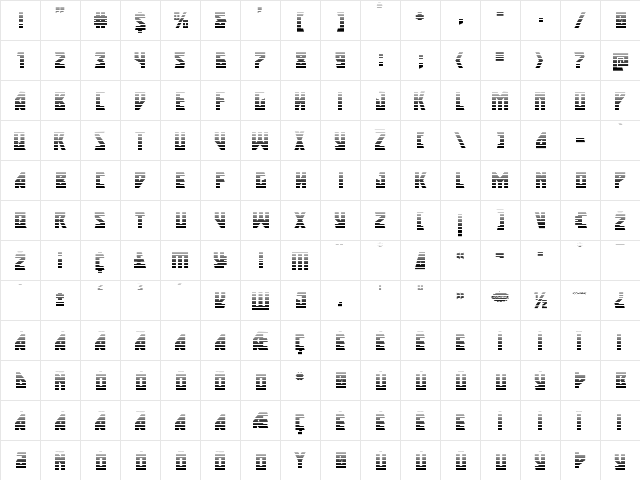
Major Force Gradient Regular
Design Context for Major Force Gradient Typeface
Major Force Gradient brings high-energy athletic personality to the page — its confident, muscular forms are built for impact.
Built for sports team identities, athletic apparel, event posters, and high-energy promotional material.
Font Pairing: Use alongside a condensed or geometric sans for supporting copy — keep the pairing bold, functional, and free of ornament.
Pro Tip: Major Force Gradient thrives on contrast — try it large, bold, and tight against a clean background for maximum visual impact.